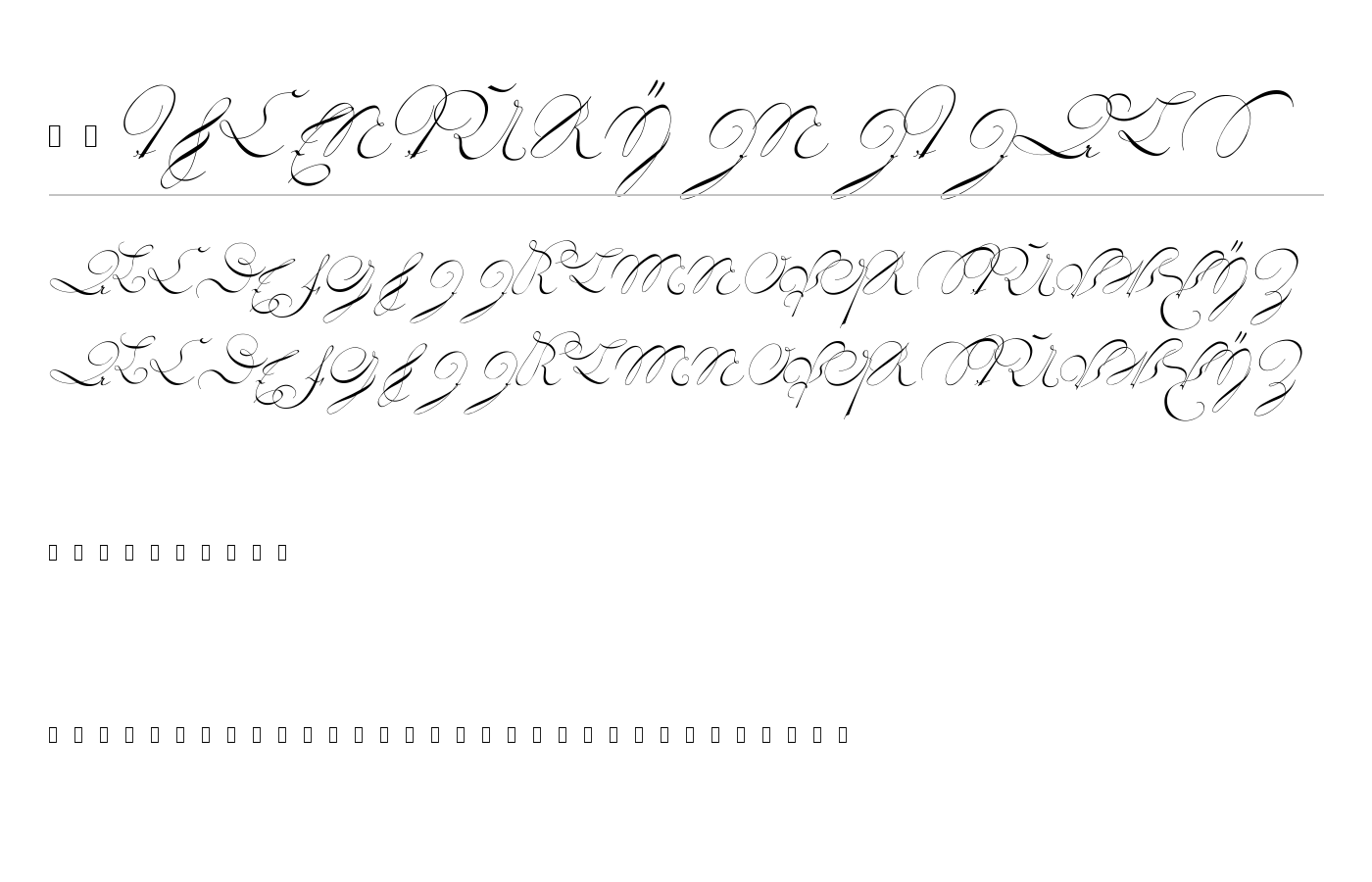
18th Century Initials is an elegant script font featuring delicate, flowing lines that evoke the refined calligraphy of the 18th century. Its fine stroke contrast and elaborate swashes create a luxurious and vintage feel, perfect for sophisticated branding, invitations, and decorative design elements. This font works best as large initials or ornamental accents where its intricate details can be fully appreciated.
18th Century Initials Font
About 18th Century Initials Font